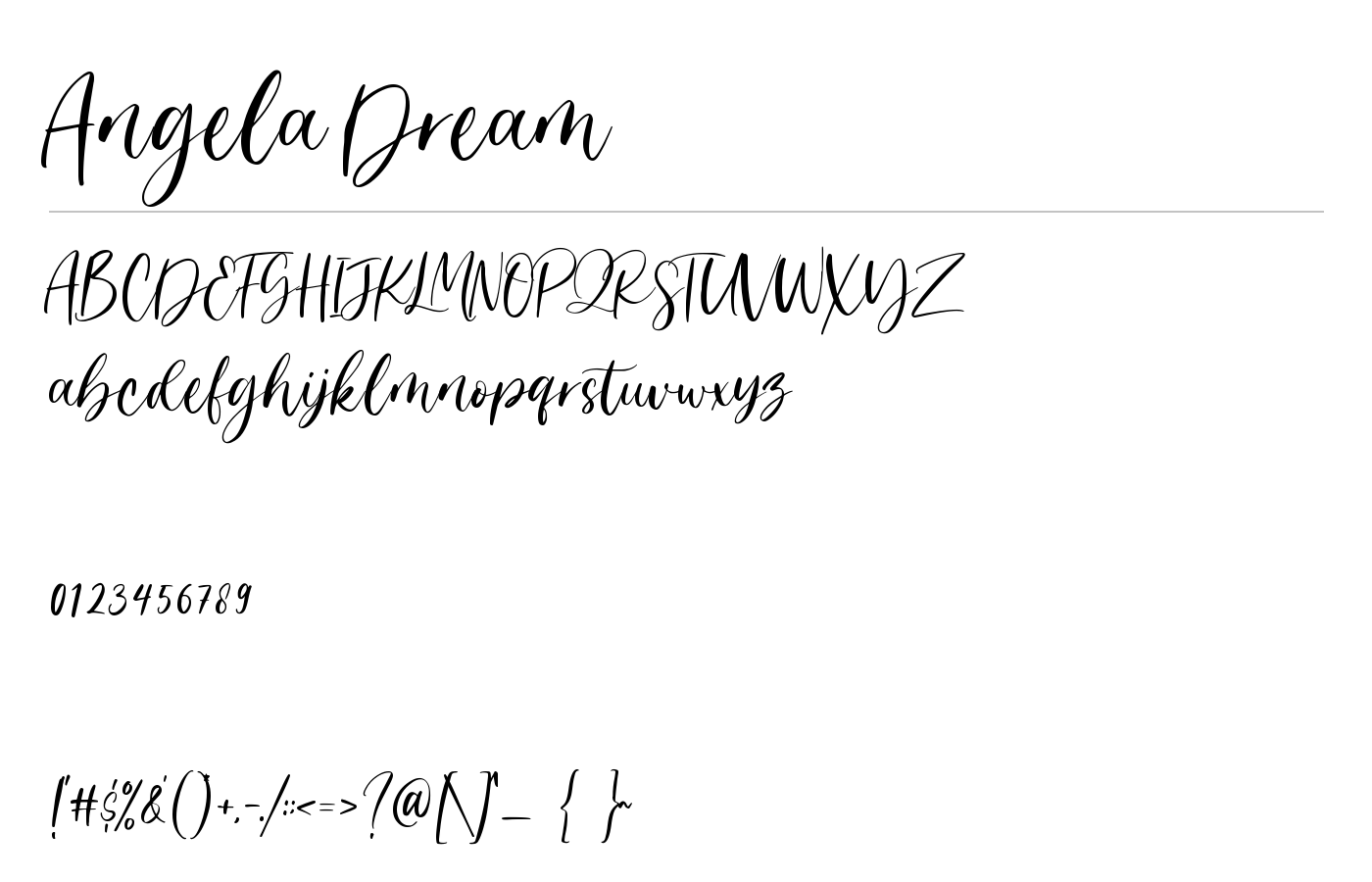
Angela Dream is a delicate script font with a flowing, handwritten style that combines elegance and warmth. Its slender, slightly tall letterforms with varied stroke widths create a graceful yet approachable feel, making it perfect for personal branding, invitations, and creative projects that seek a charming, heartfelt touch. This font works well in headlines, logos, and editorial accents where a sophisticated but friendly impression is desired.
Angela Dream Font
About Angela Dream Font
| Font family | Angela Dream Font |